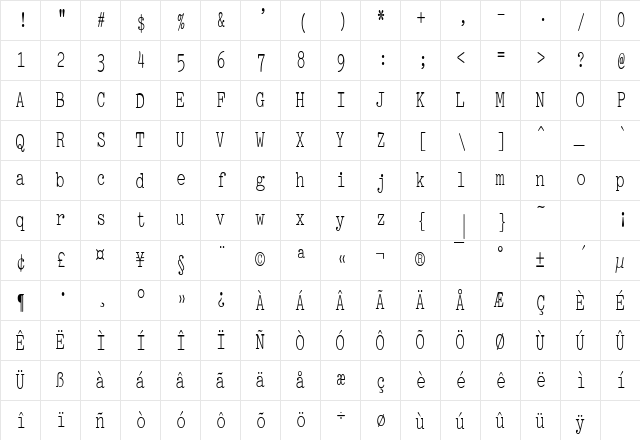
PicaCondensed Regular
Design Context for PicaCondensed Typeface
PicaCondensed takes a measured approach to typography — its balanced proportions and neutral character make it a reliable workhorse for both digital and print work. The condensed width makes it efficient for tight spaces without sacrificing legibility.